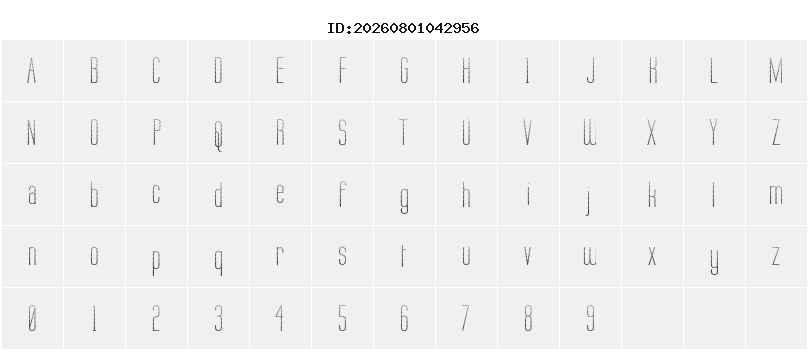
• Font Name: Labtop Candy
About Labtop Candy.ttf
Labtop Candy.ttf is a modern, elegant sans-serif font designed for ultimate readability and visual harmony. Perfect for branding, headlines, web design, and print materials.